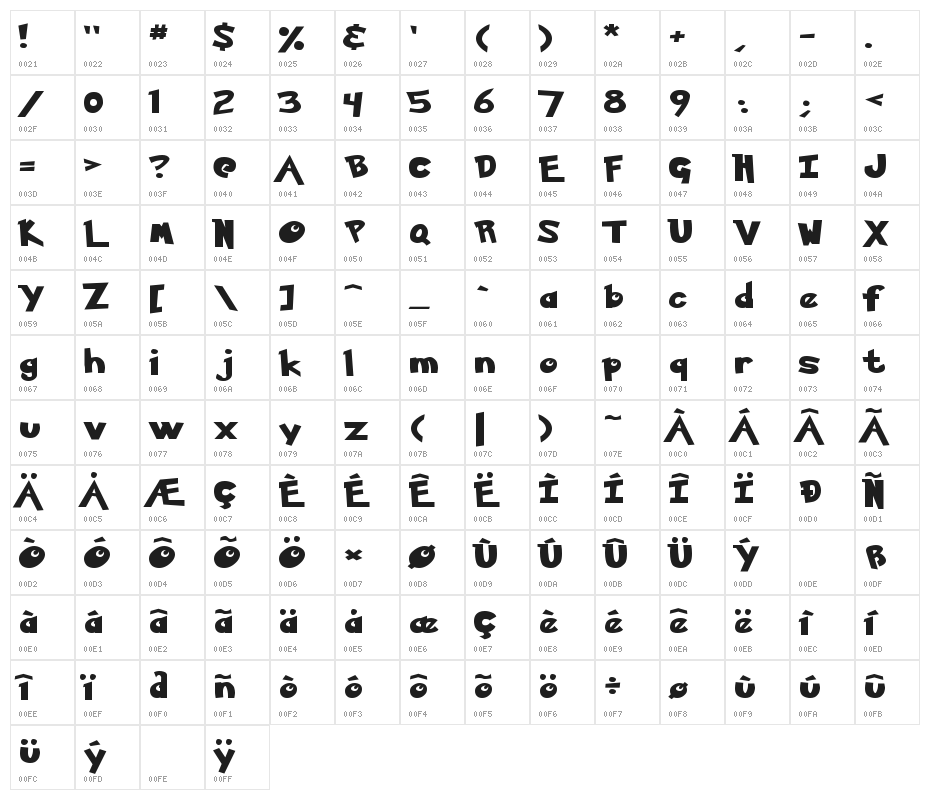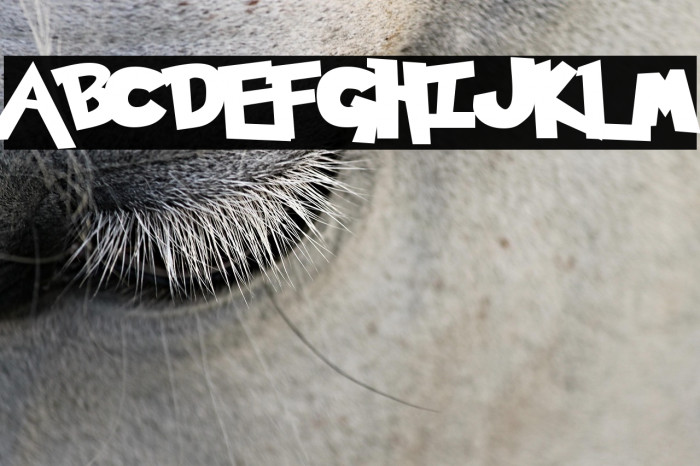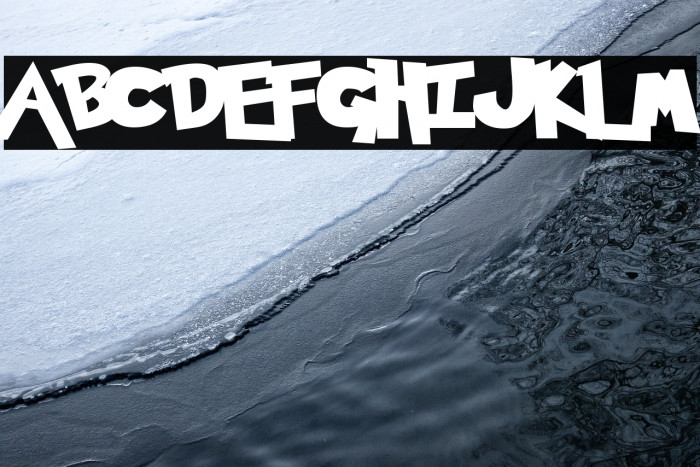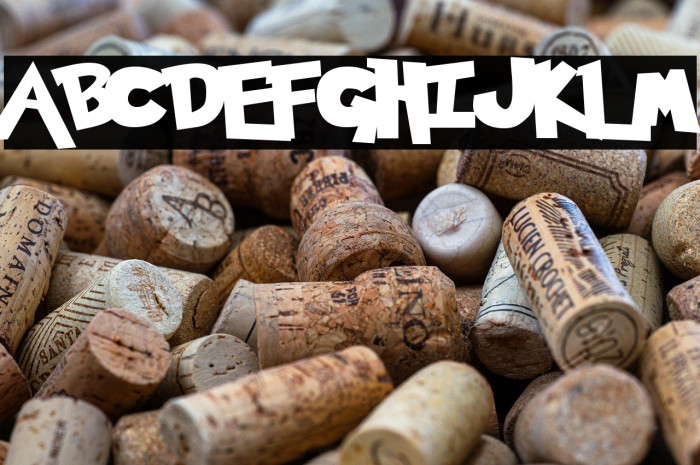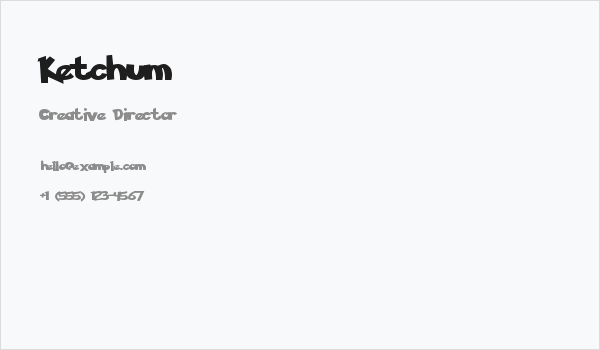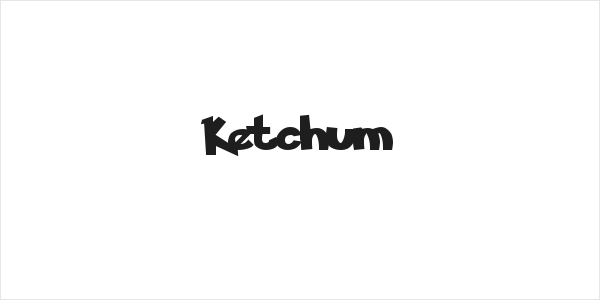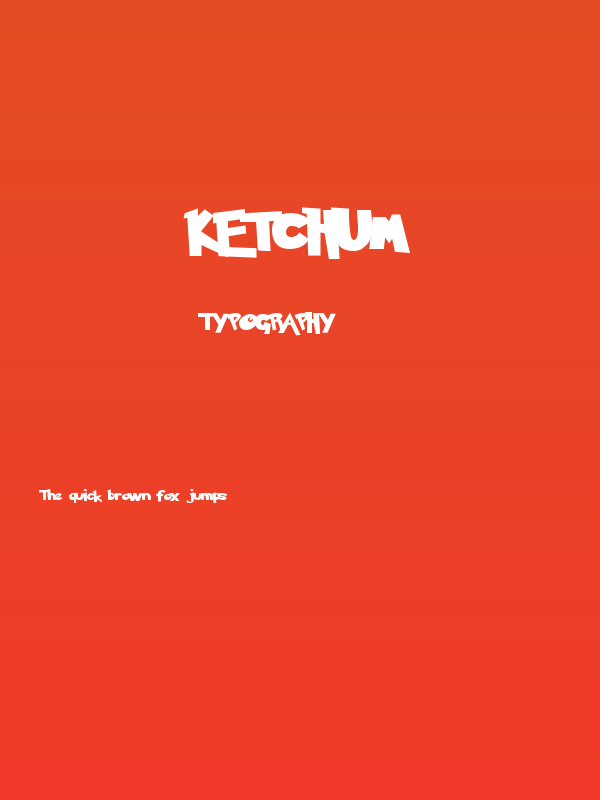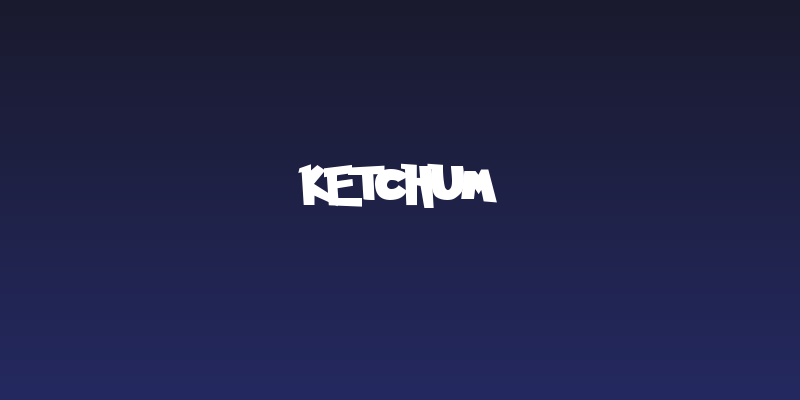
Ketchum Font
Ketchum Description
This font features a bold, playful style with exaggerated curves and angles, giving it a dynamic and energetic appearance. The uppercase letters are particularly striking, with a strong presence and unique character shapes that stand out. The lowercase letters maintain the same playful aesthetic, with rounded forms and a slightly irregular baseline that adds to the font's charm. The numbers and special characters are equally bold and distinctive, making them suitable for attention-grabbing designs. Overall, this font exudes a sense of fun and creativity, making it ideal for projects that require a lively and unconventional look.
| Overall Style | Playful, Energetic |
| Proposed Projects | Ideal for children's book covers, playful branding, posters, and any project needing a fun, energetic typeface. |